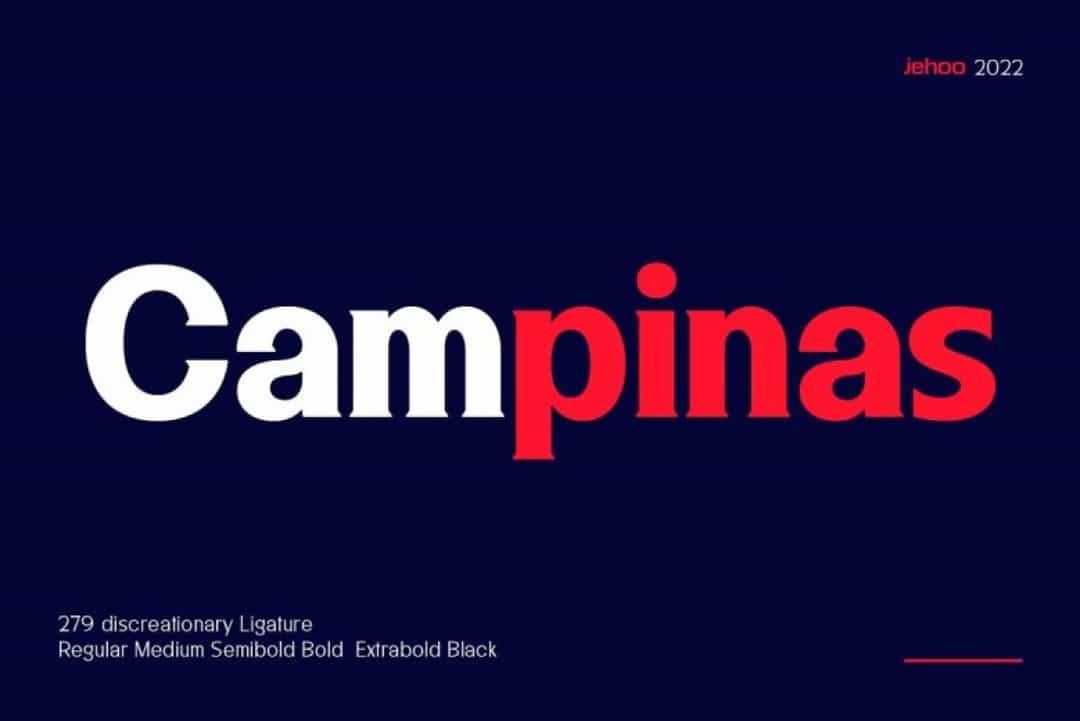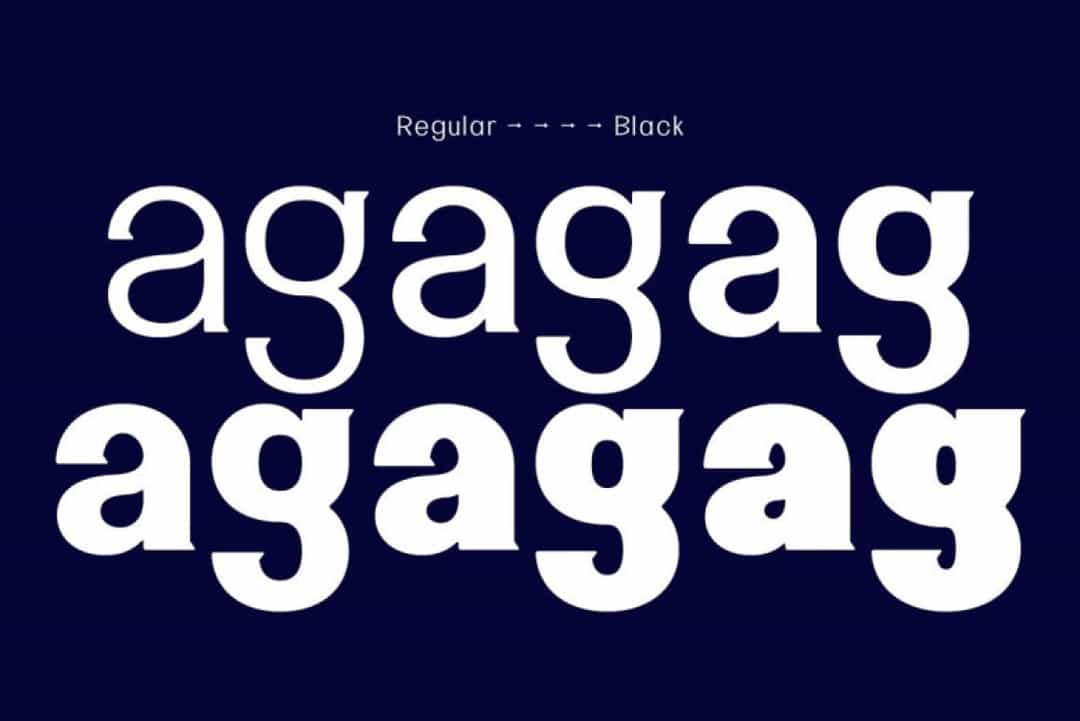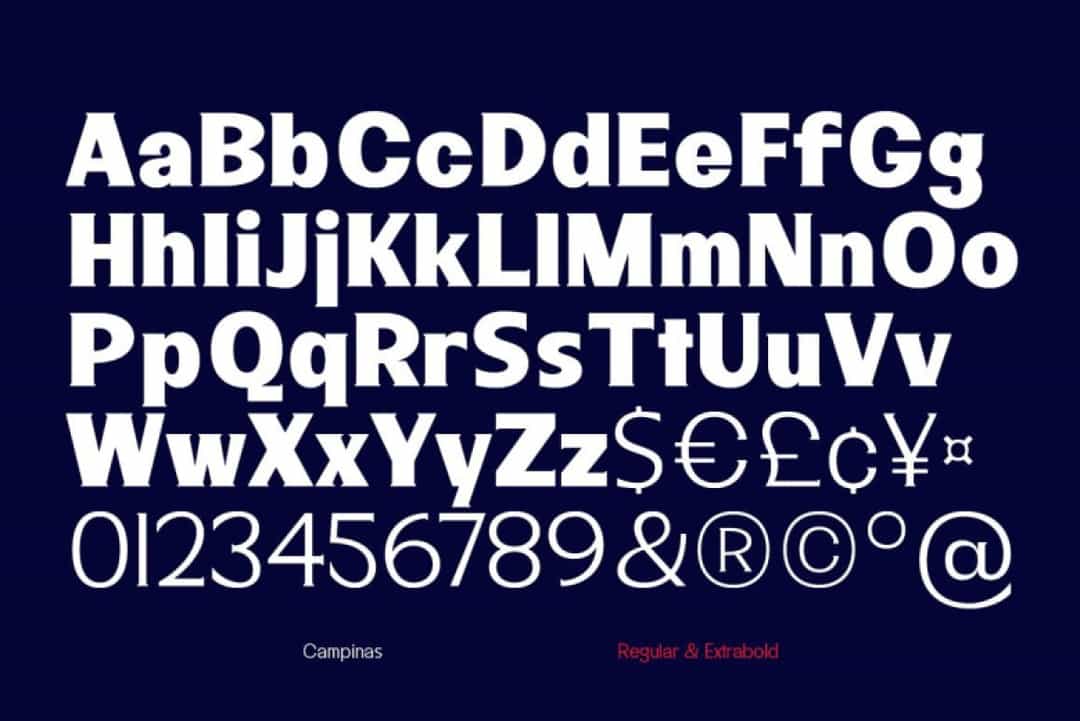
Campinas Serif Font is a unique and modern family of serif typefaces. It’s designed and shared by Jehoo Creative. Has a serif foundation shape with minimal contrast. Campinas is designed to carry an expressive and engaging character making this font very suitable for casual and fun themed designs.